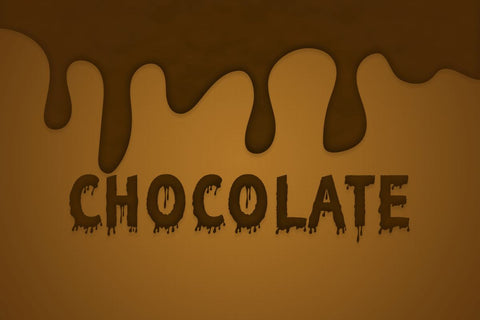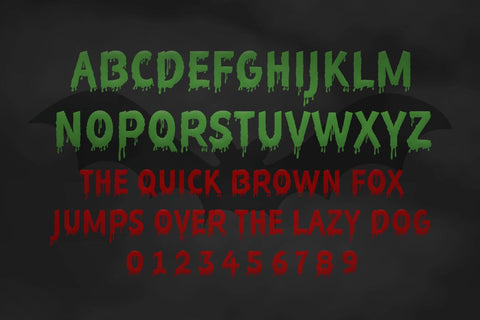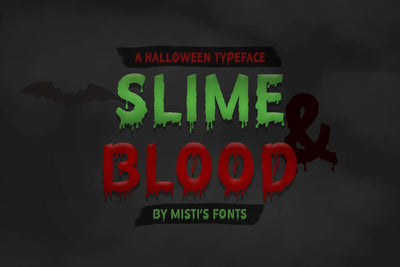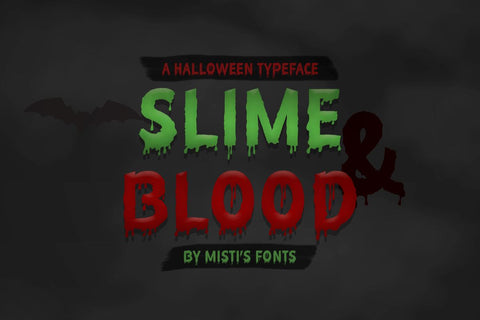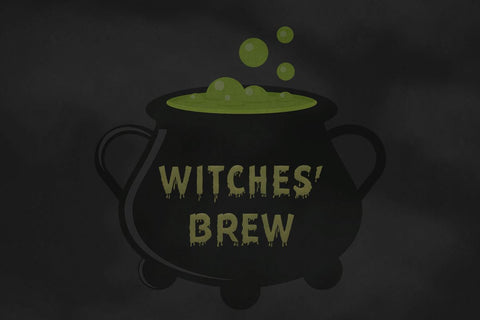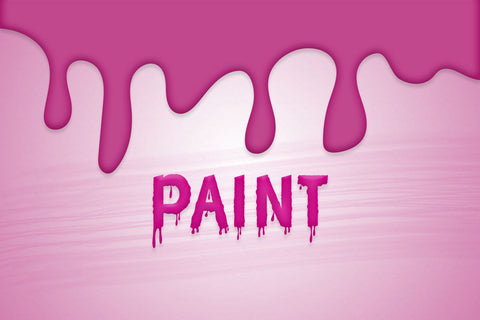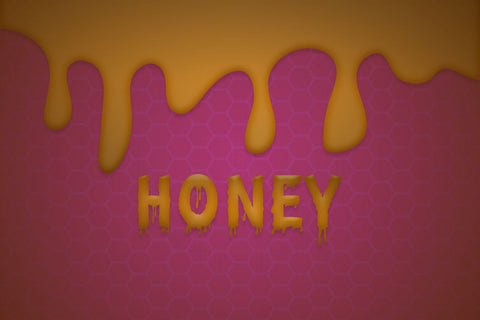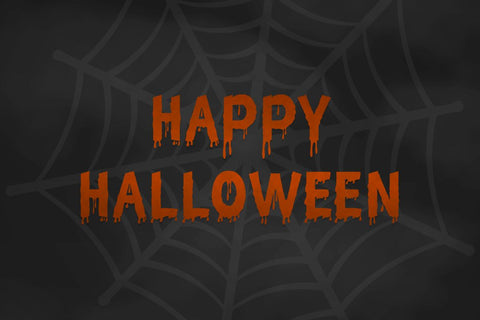
Slime and Blood
Slime and Blood is a spooky all-caps display typeface with dripping font characters. It is perfect for all Halloween and horror-themed projects. You can also use it all year round to create impressive dripping chocolate, honey, paint (or any other liquid you can imagine) text effects, making it a truly versatile font.